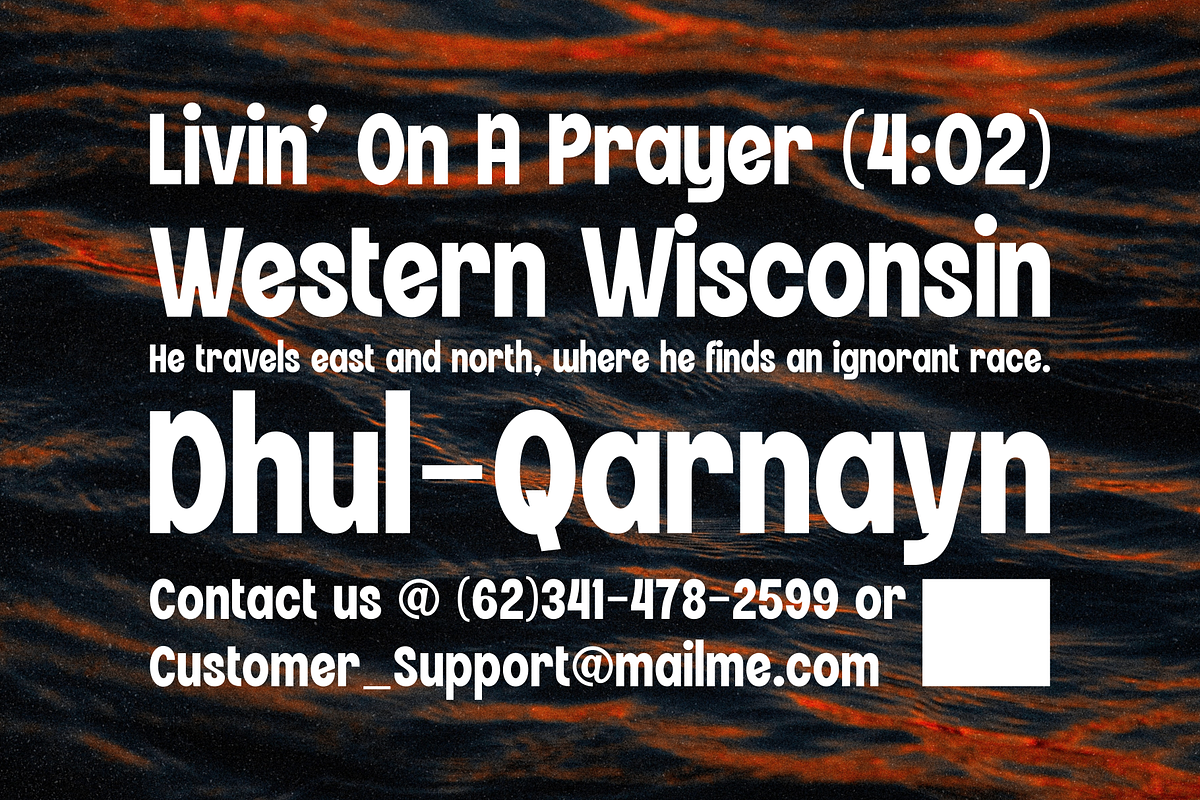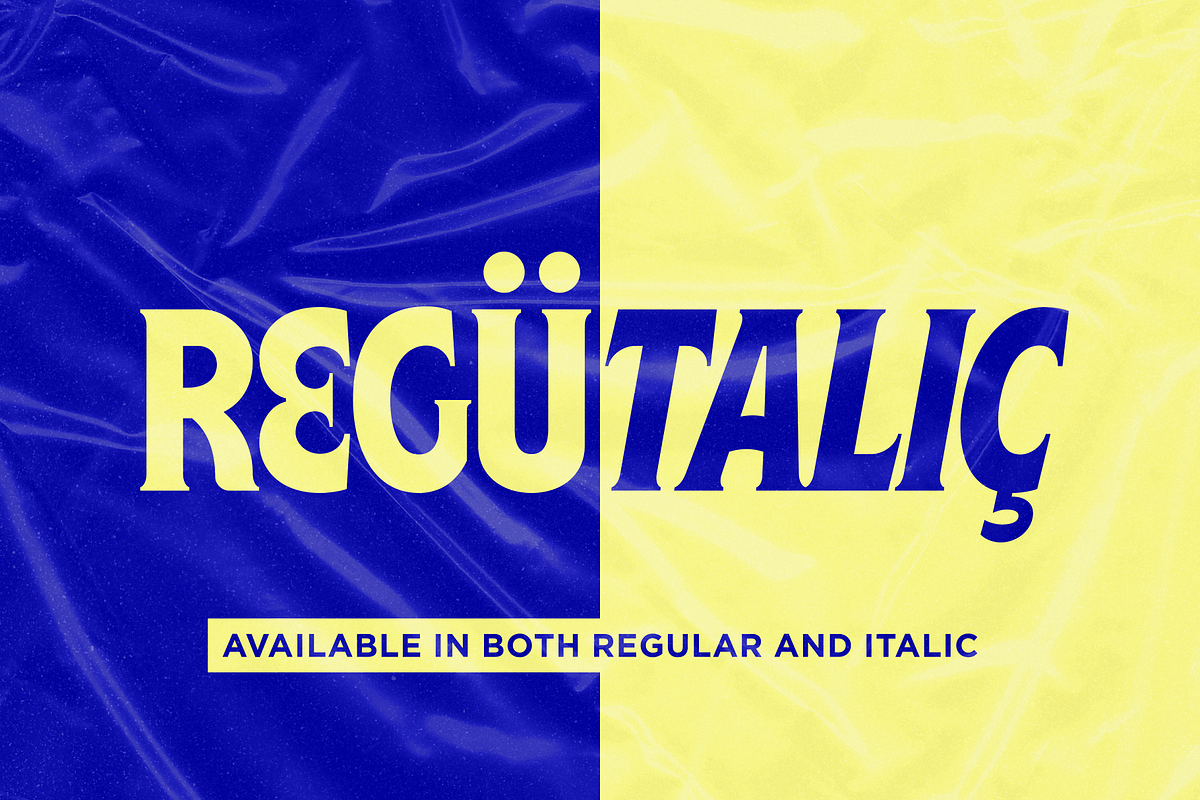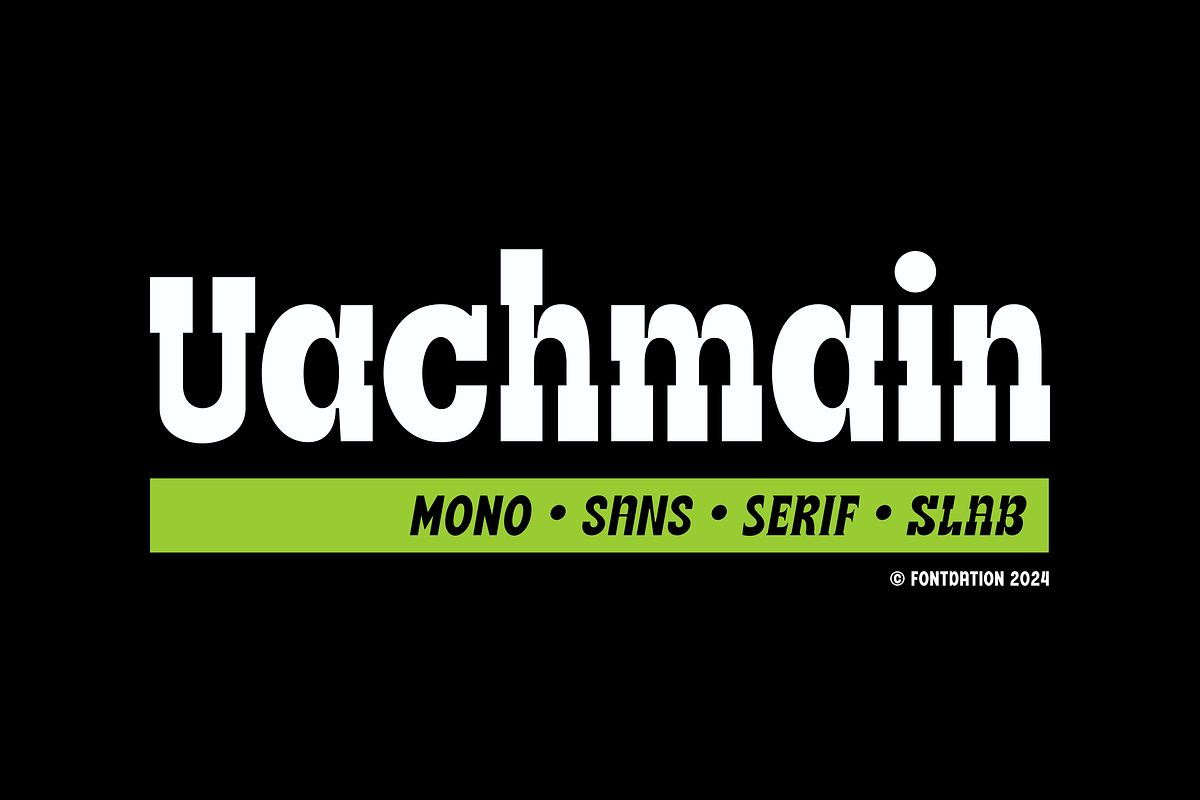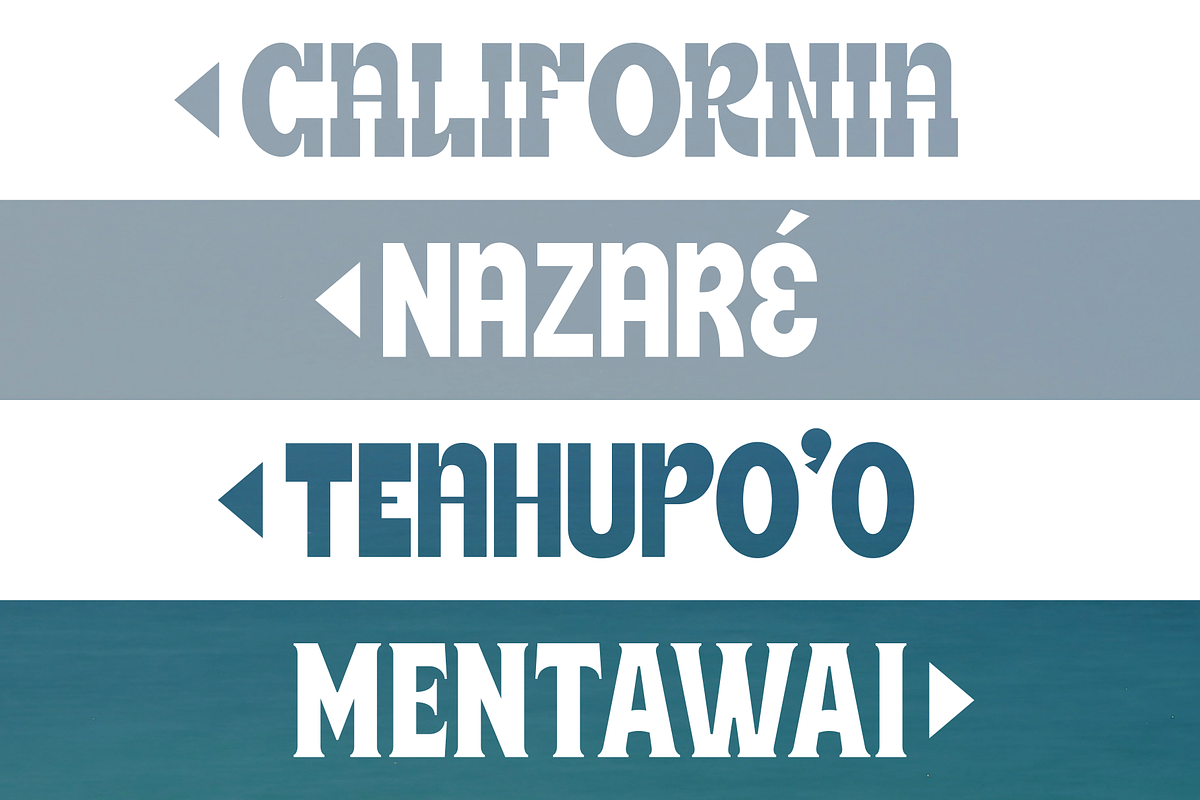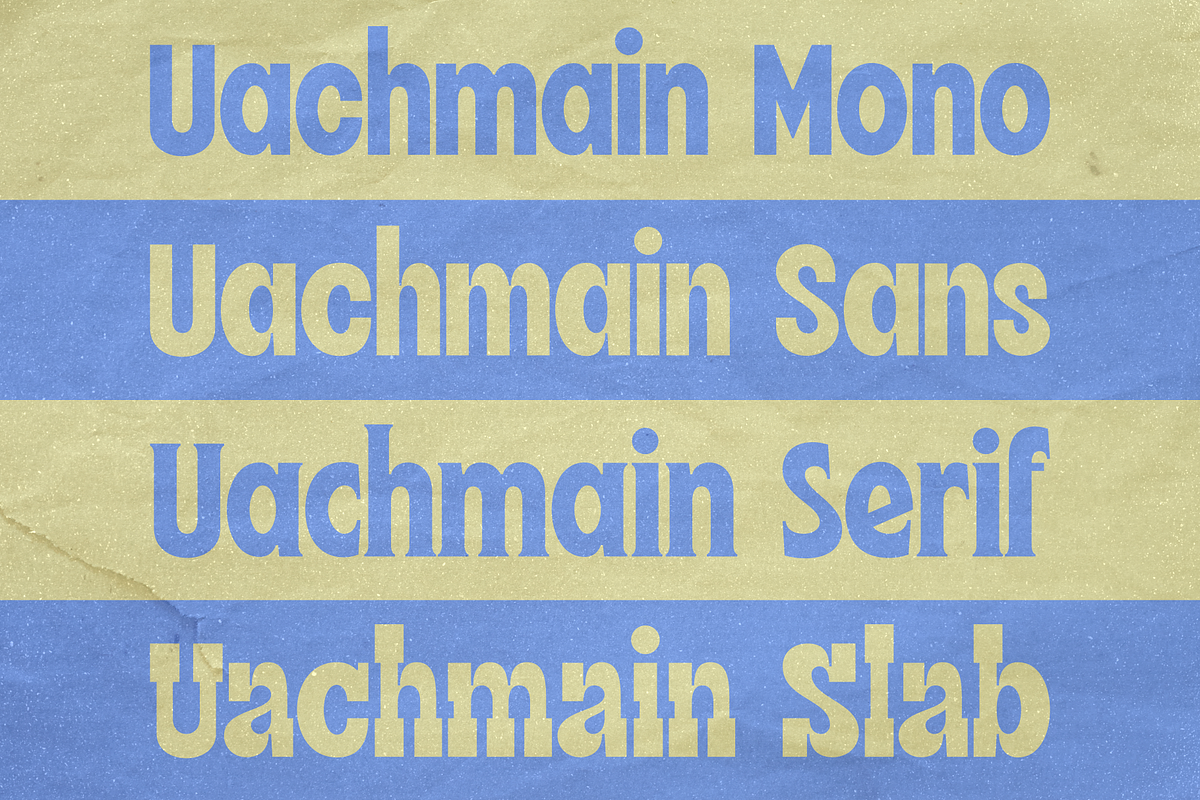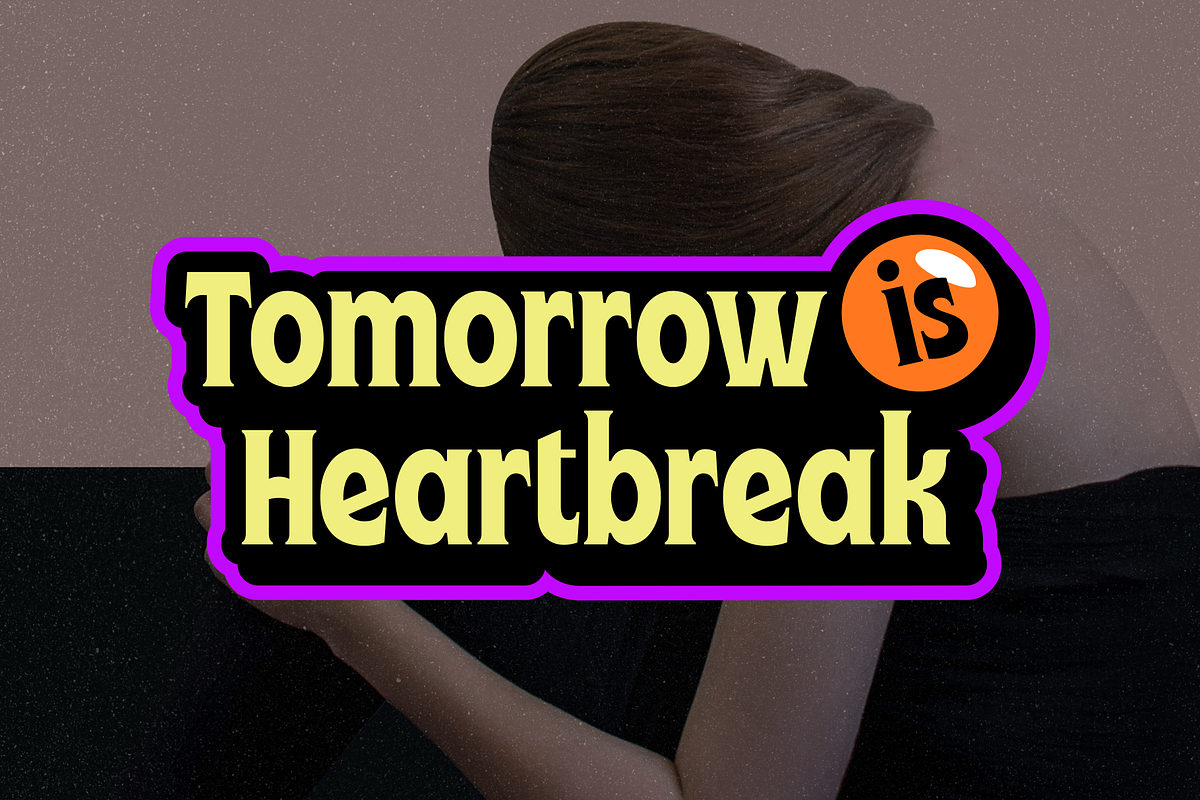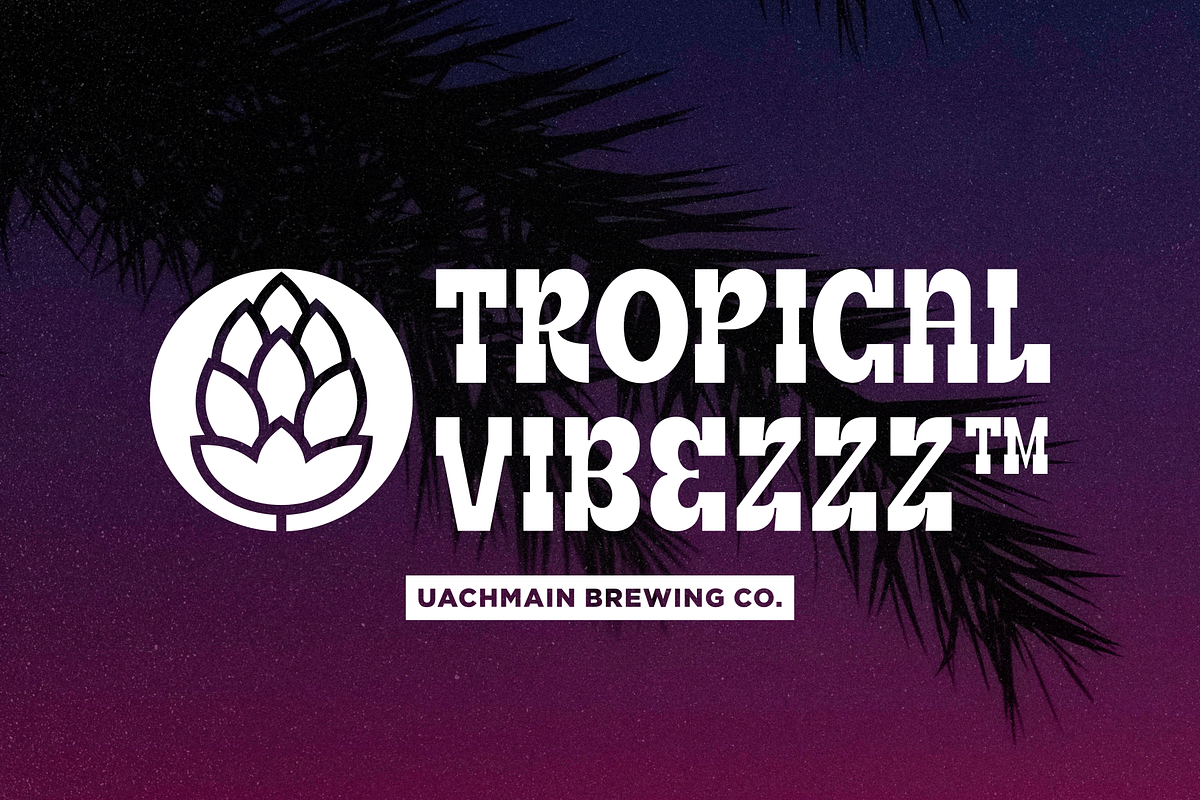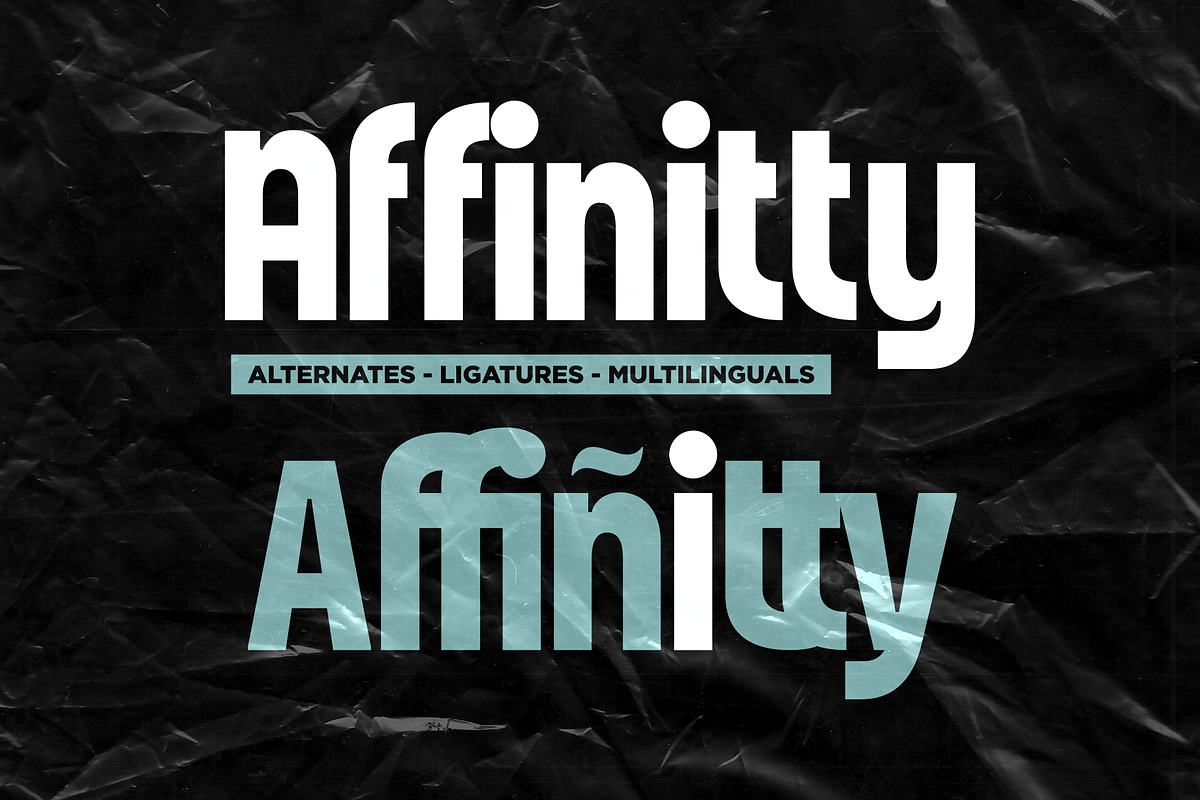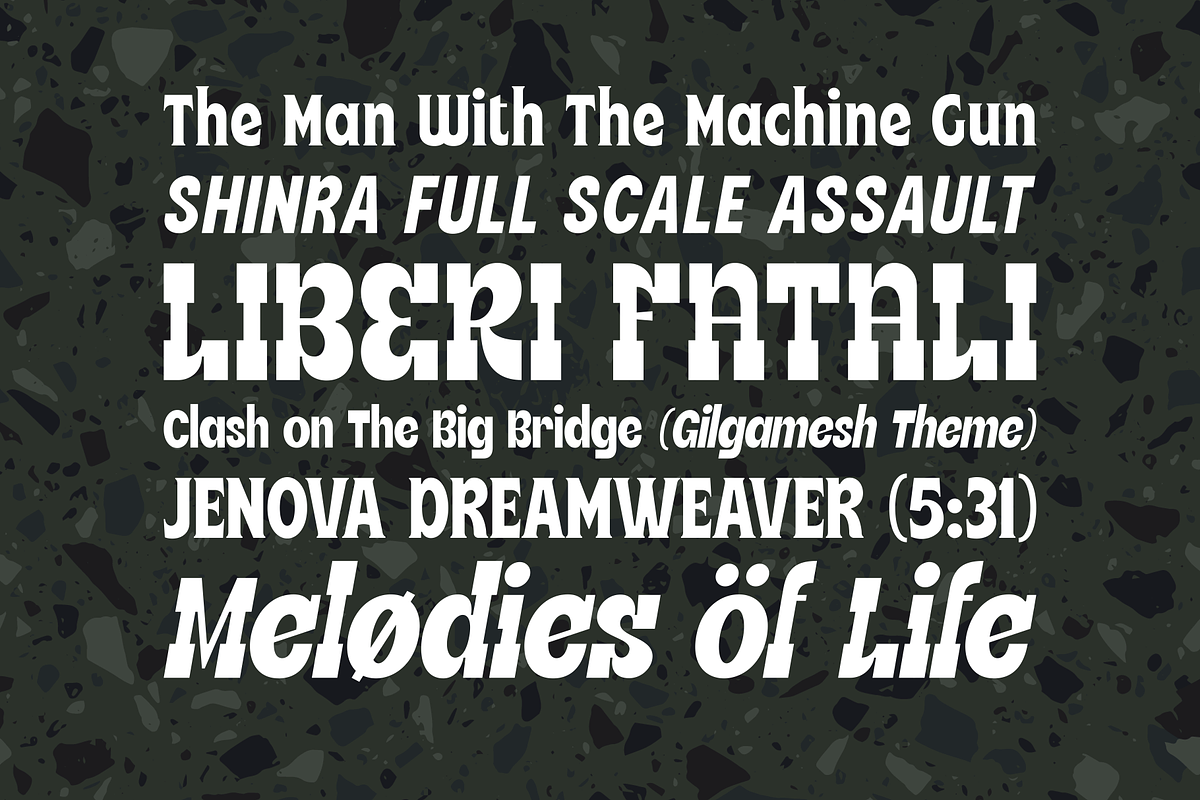
Uachmain | 4 in 1 Fonts
Uachmain is a 4 multi styles font in a pack. Consist of sans, monoline/geometric sans, slab serif and serif, with italic version available for each style. This large pack is a must have for every graphic designers out there. Suits best for any classic/modern themed designs such as logo/branding, food/beverage packaging, apparel, quote/poster designs, etc.
- Standard characters, numerals, punctuations, swash, alternate & stylistic characters, ligatures (OpenType Standard encoding),
- Available in multilingual languages, e.g : Afrikaans, Albanian, Catalan, Croatian, Czech, Danish, Dutch, English, Estonian, Finnish, French, German, Hungarian, Icelandic, Italian, Lithuanian, Maltese, Norwegian, Polish, Portuguese, Slovenian, Spanish, Swedish, Turkish, Zulu, etc),
- Available in Regular and Italic for every style,